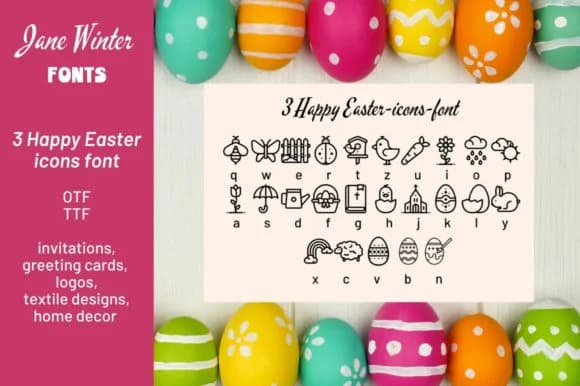
About Happy Easter Icons Font
This dingbats collection brings bright, spirited charm to holiday designs. Happy Easter Icons, designed by Stella Sky, offers a cheerful set of Easter-themed ornaments and decorative elements that work beautifully as borders, dividers, and accent marks throughout your projects.
Real designers use this for Easter invitation suites, egg hunt programs, and spring greeting card designs. The icon set includes egg motifs, floral elements, and festive decorations that feel hand-drawn without the fussiness. You'll find enough variety to frame titles, separate content sections, or build a complete visual system around the icons alone. Home decor shops build printable Easter signs and wall art using these elements, while stationery designers layer them into DIY craft invitations and custom envelope liners. The icons also work well for Etsy product listings if you're selling Easter-themed goods.
Pair it with a simple serif typeface like Lora or Georgia to let the icons shine without competing for attention. Wedding planners love it for bridal shower invitations with an Easter angle, and small businesses build product labels and boutique packaging graphics around its playful motifs. This is one of those fonts that serves the moment without overwhelming your layout. Grab it on Creative Fabrica and start designing.
Happy Easter Icons Font is a versatile dingbats font that works for both headings and body text. Pair it with a contrasting sans-serif or serif font to add visual interest and a clear distinction between titles and body copy.
Happy Easter Icons Font
by Stella Sky